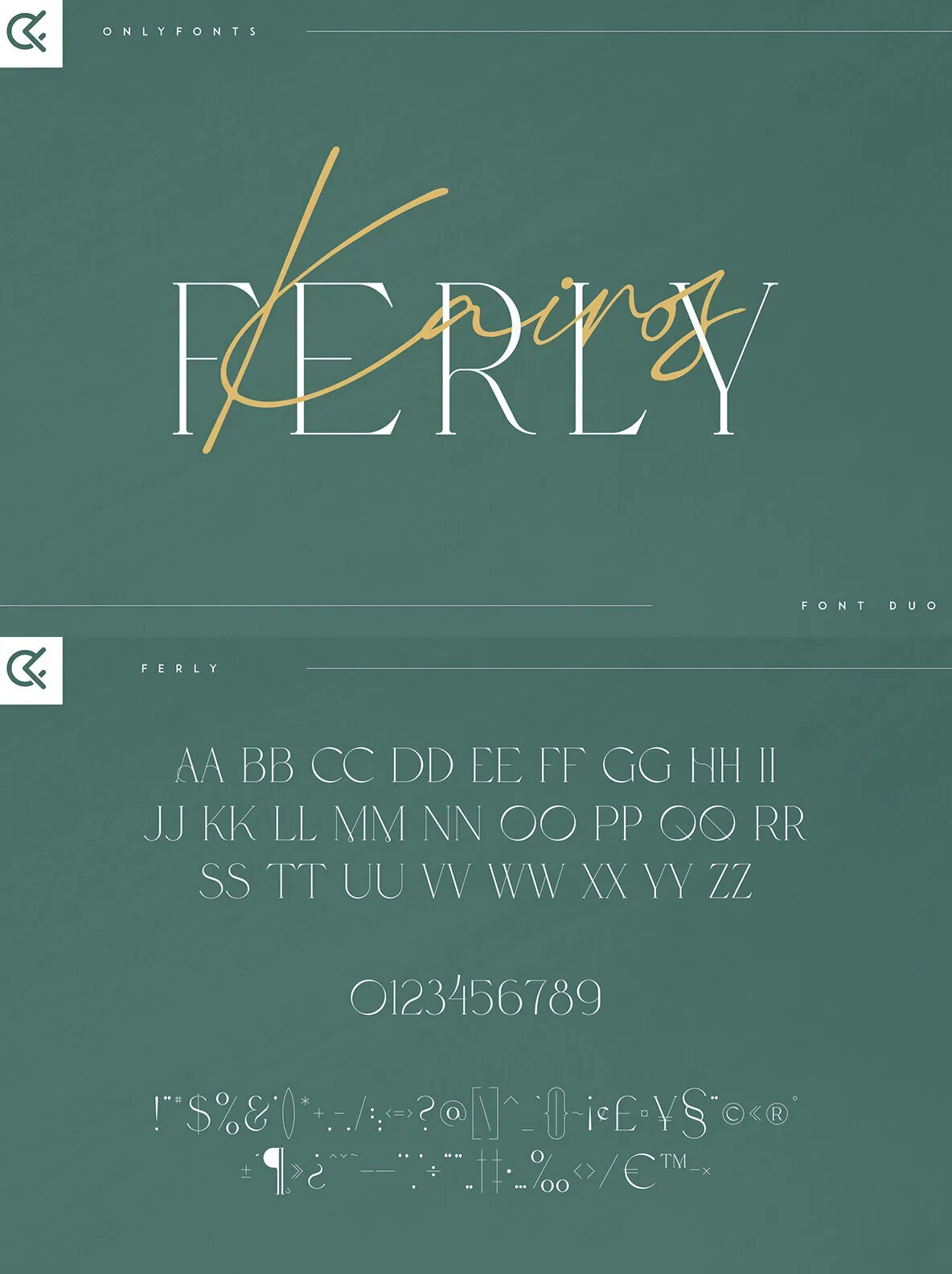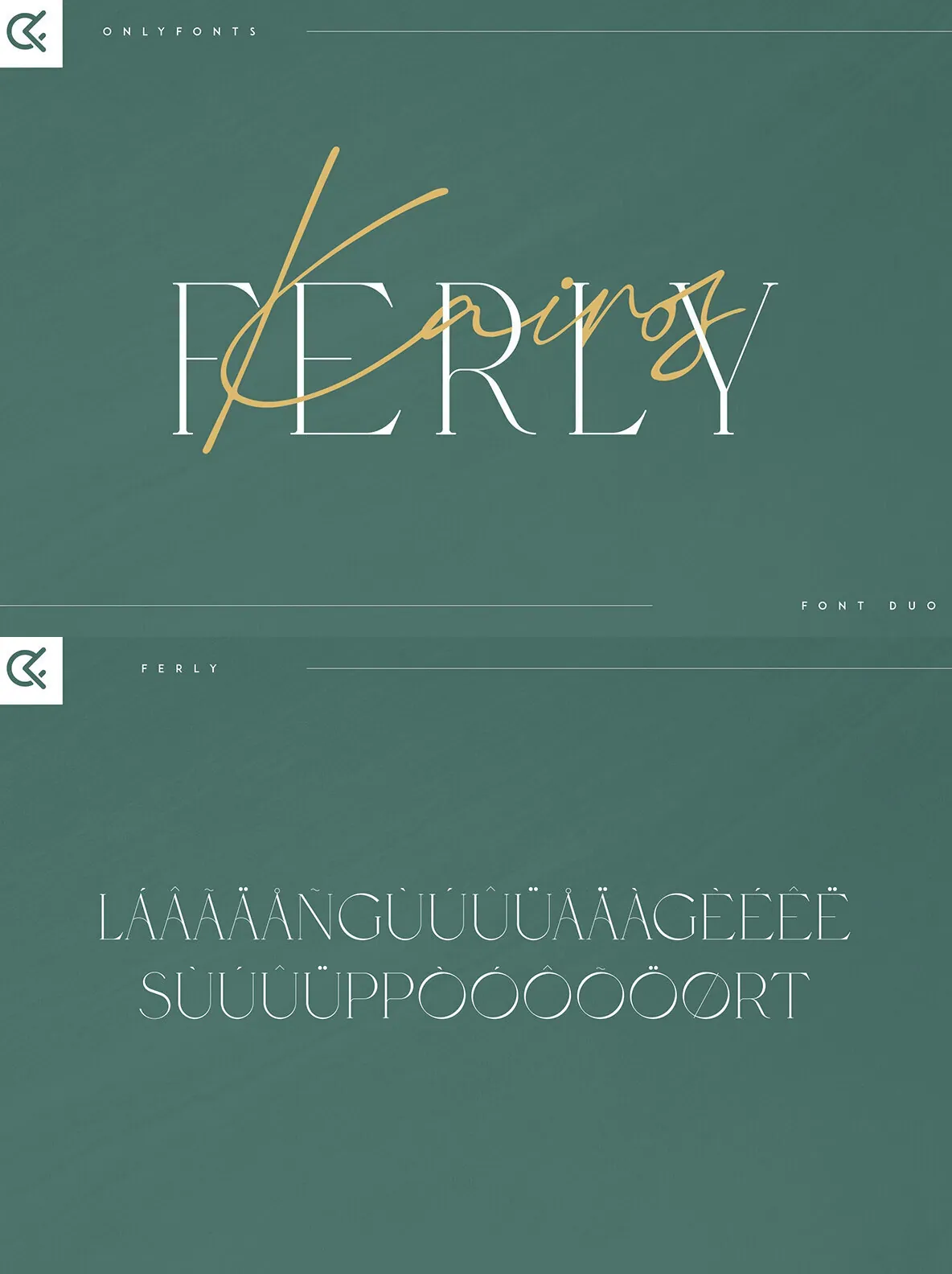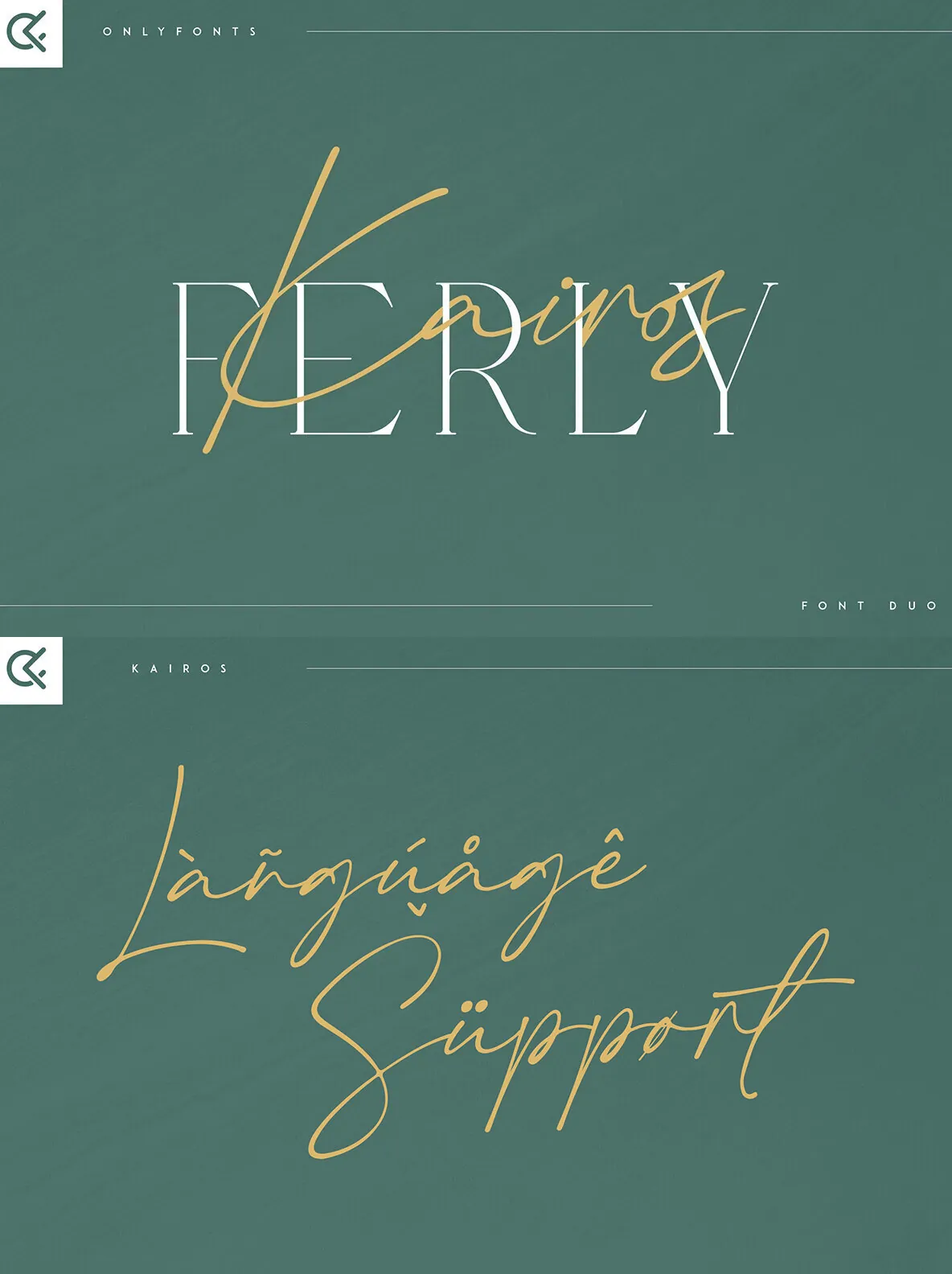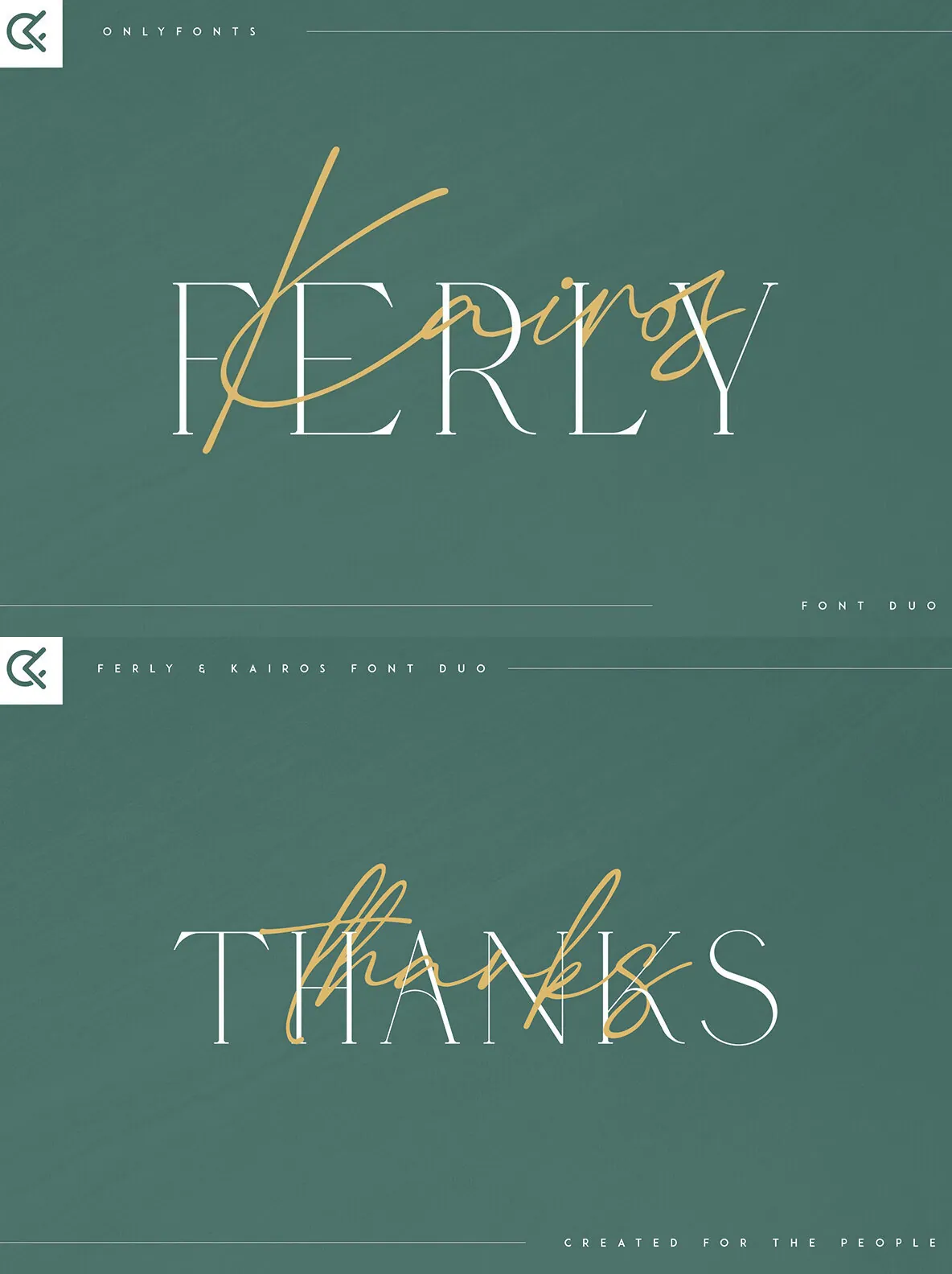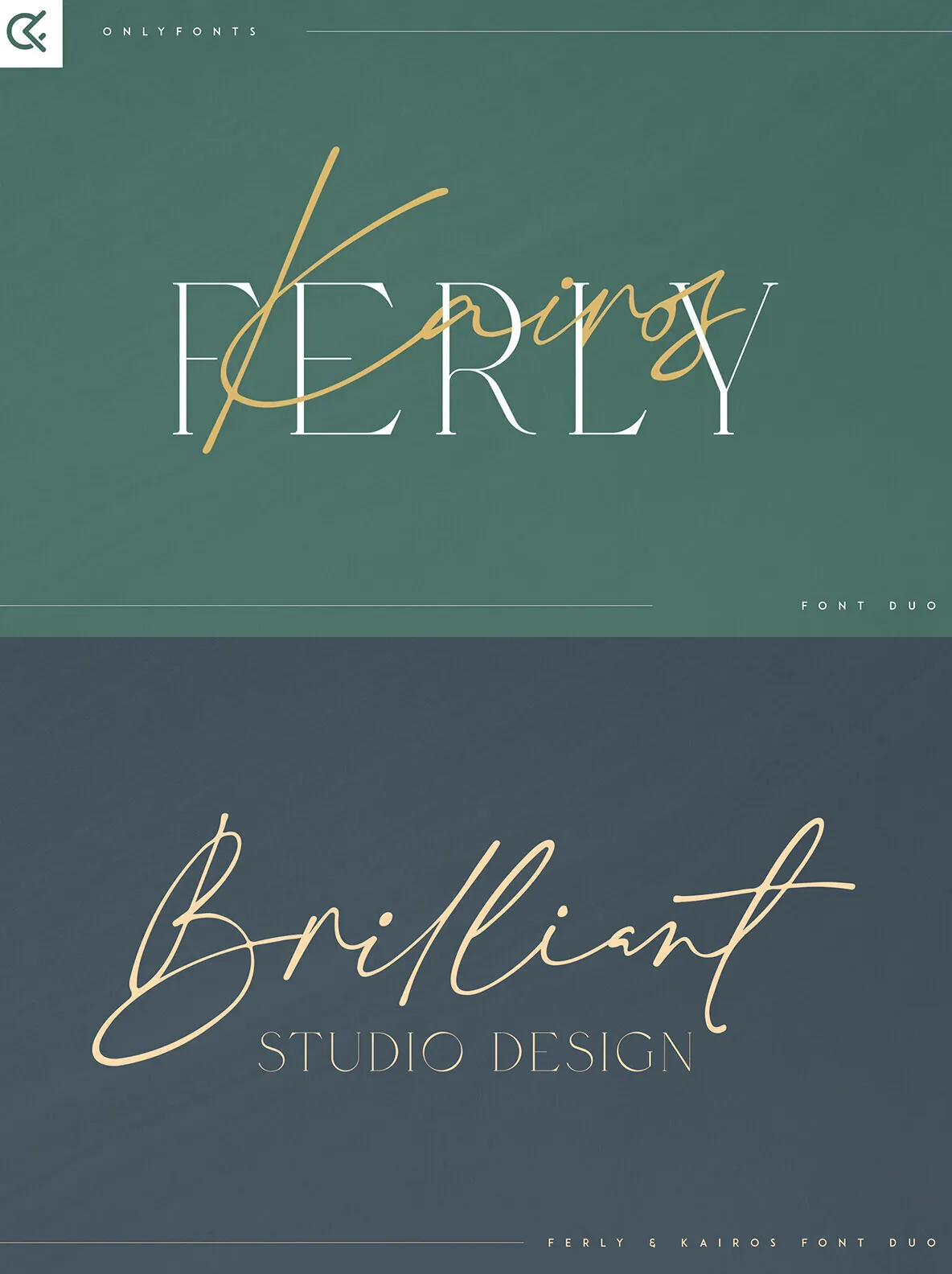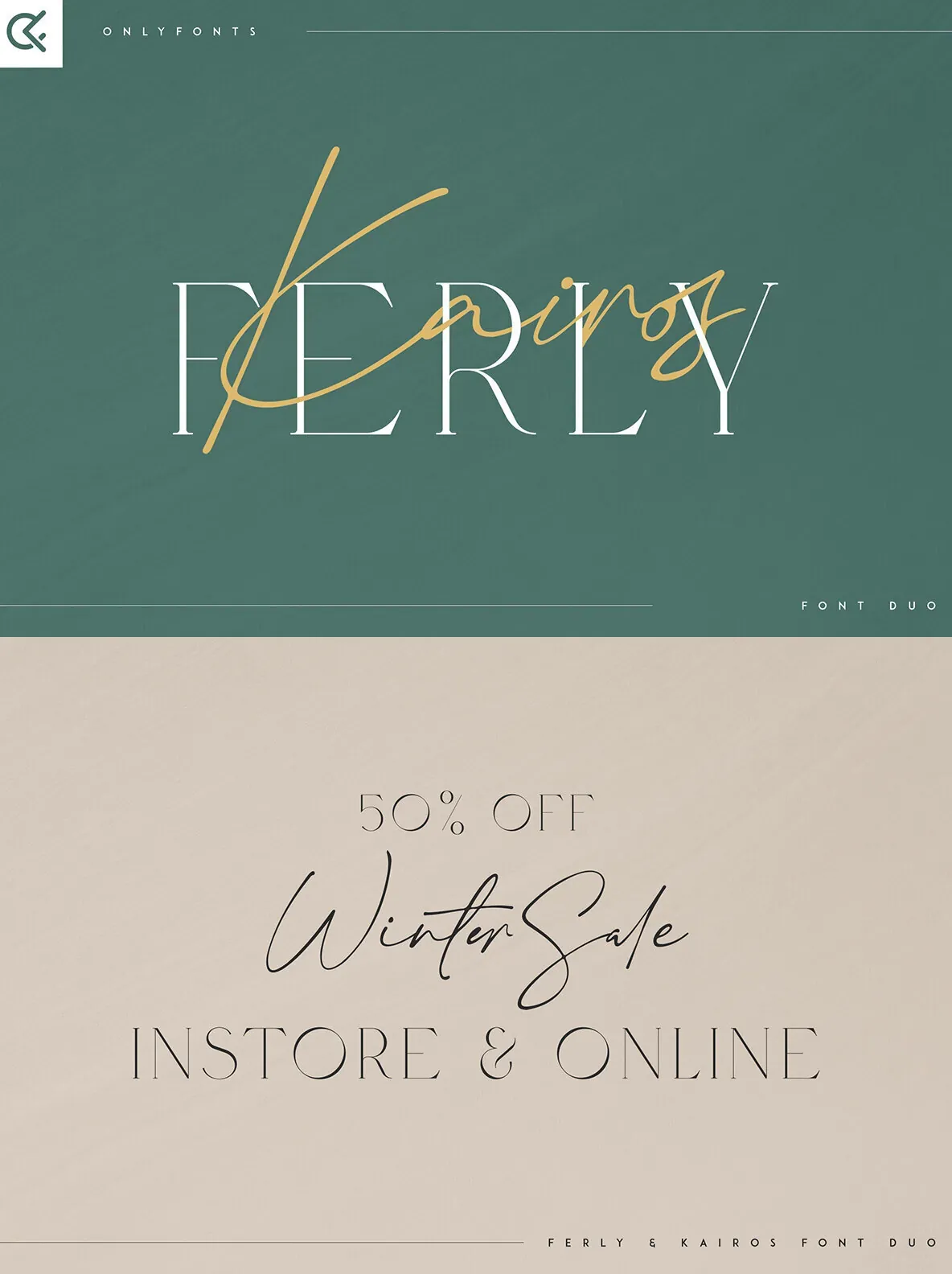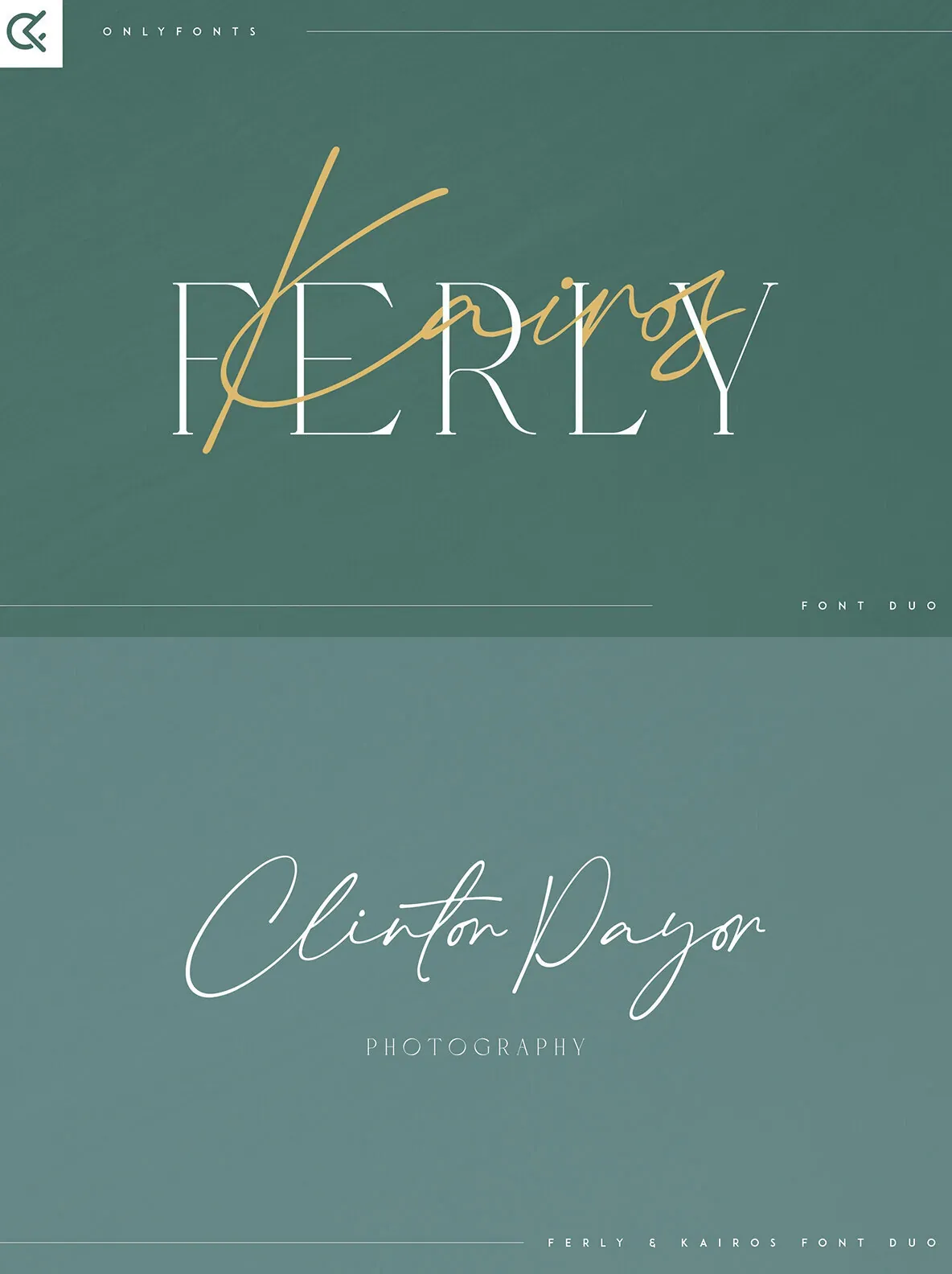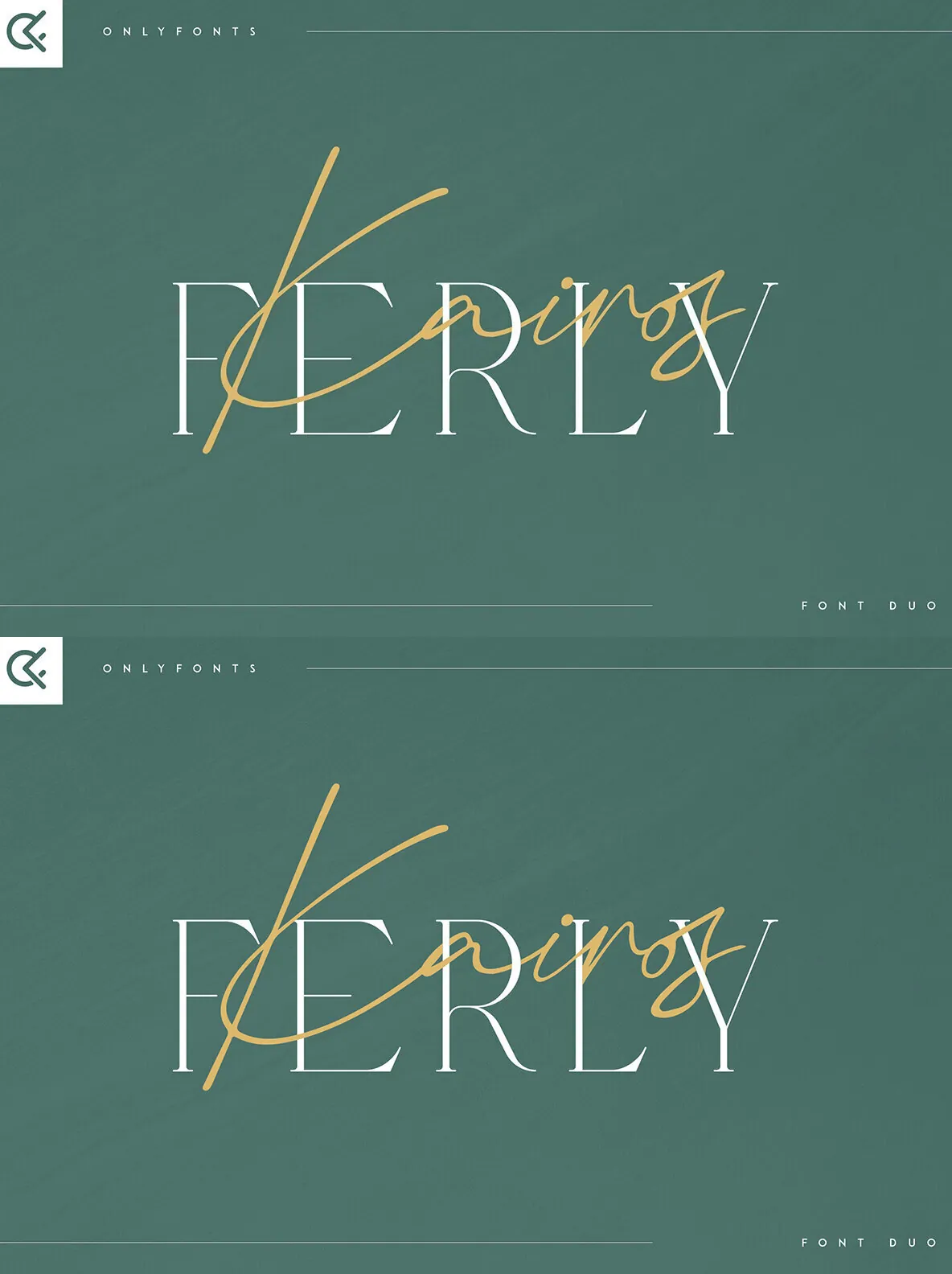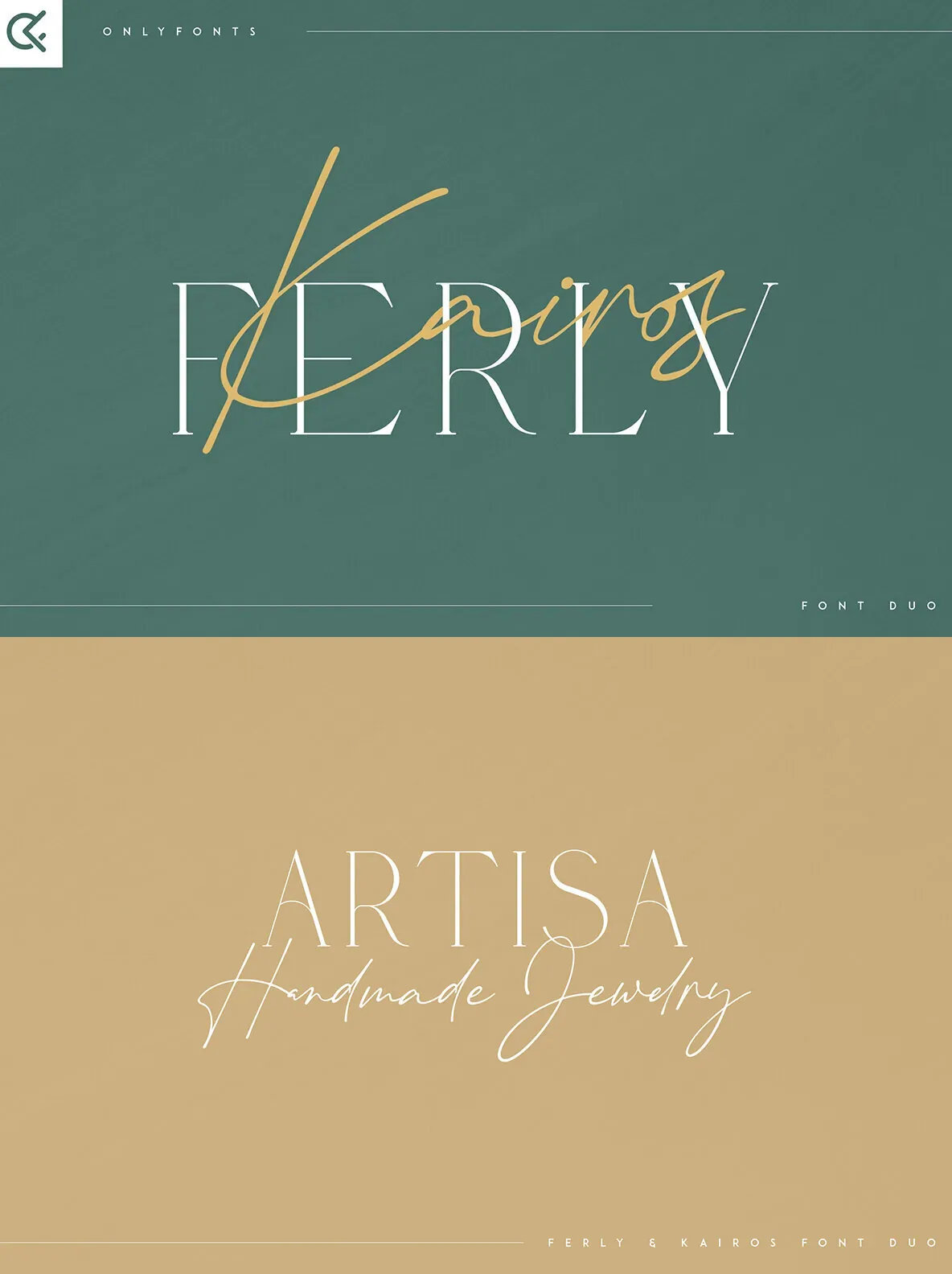
Ferly and Kairos — Luxury Serif Meets Delicate Script
A refined font duo that pairs a luxury-leaning serif with a fragile, handwritten script. Ferly & Kairos brings a considered contrast to typography for modern branding, with multilingual support that suits a wide range of design needs. It performs beautifully at both large and small sizes, giving you dependable readability for text and a confident presence for display.
Use it for branding projects, home-ware designs, product packaging, magazine headers, or as a stylish text overlay on any background image. The set includes uppercase, numeral, punctuation, and symbol characters, alongside a serif style, handwritten script, and multilingual support. Designed by VP Creative Shop, it installs easily and stays practical for everyday workflows.